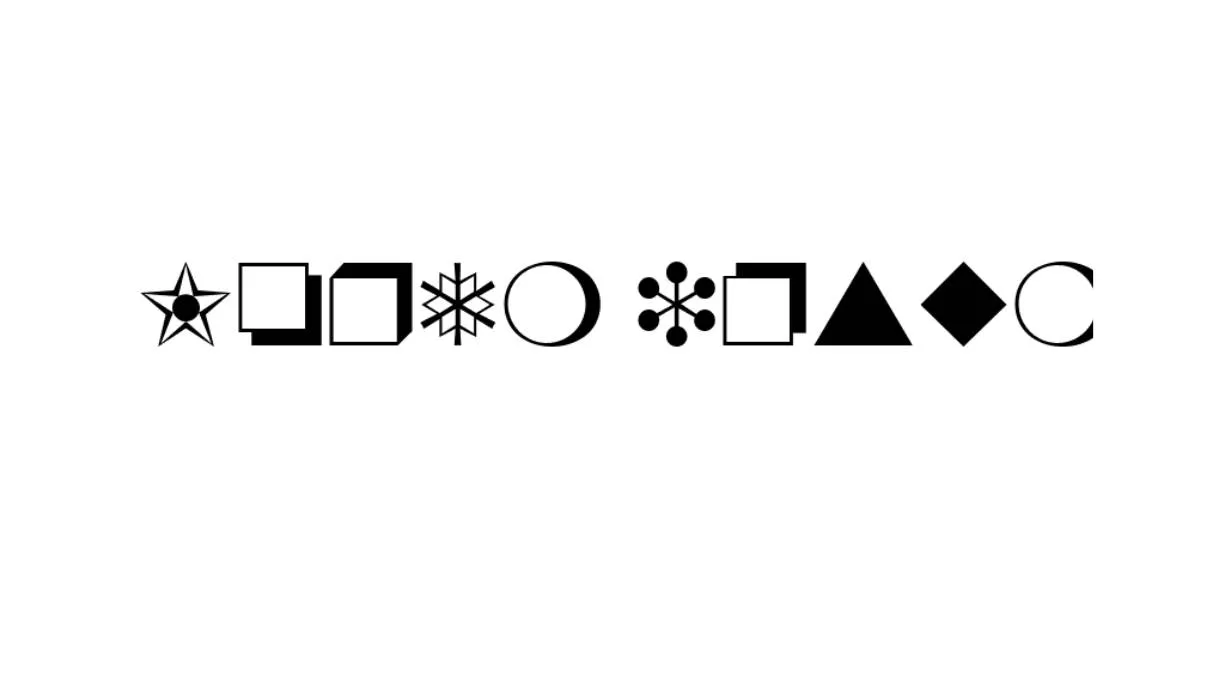
ITC Zapf Dingbats Font is a decorative font consisting of various symbols and pictograms.
This font offers a wide range of symbols for different purposes and is a popular choice for creative and illustrative design.
| Name | ITC Zapf Dingbats Font |
| Designer | Hermann Zapf |
| Style | Dingbats |